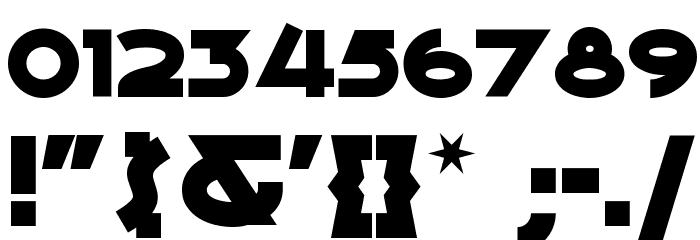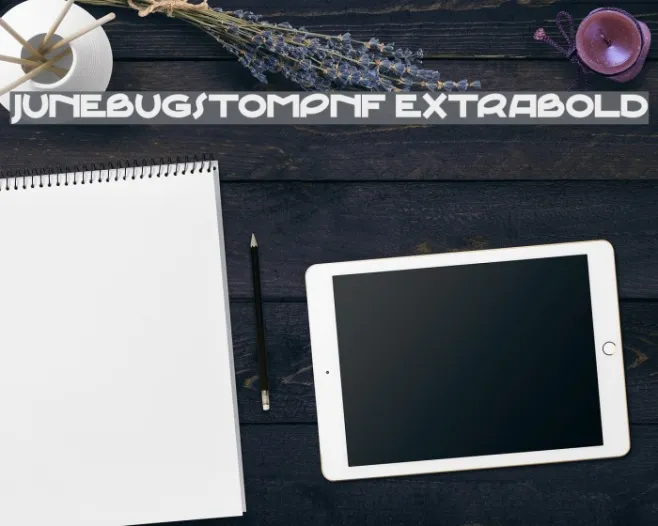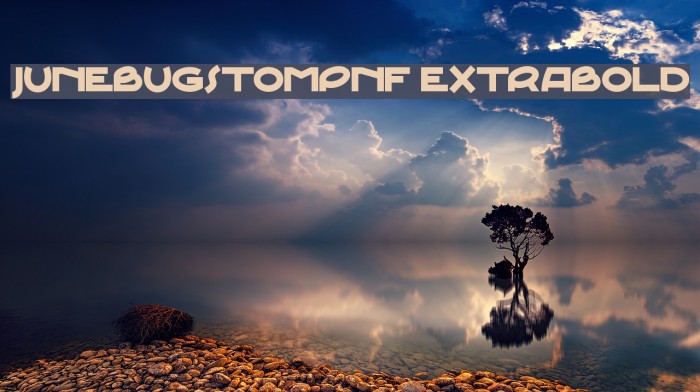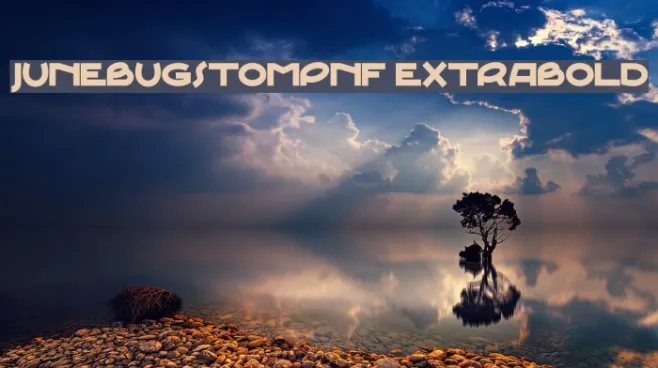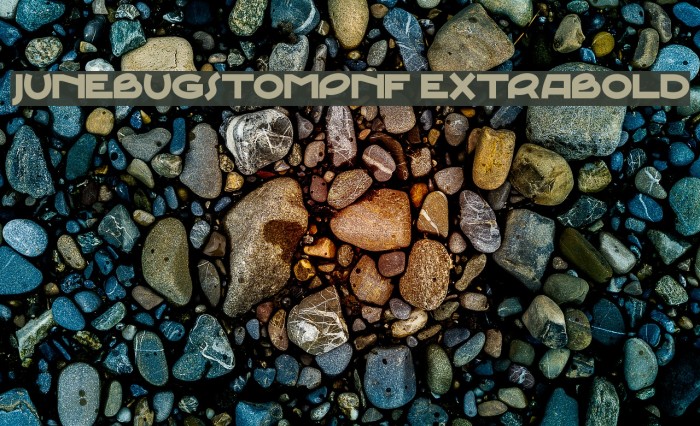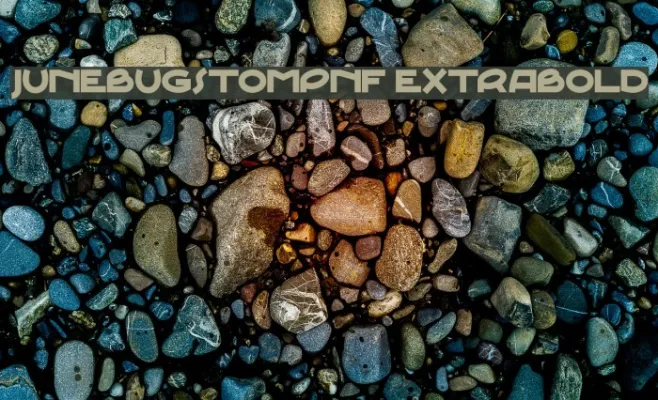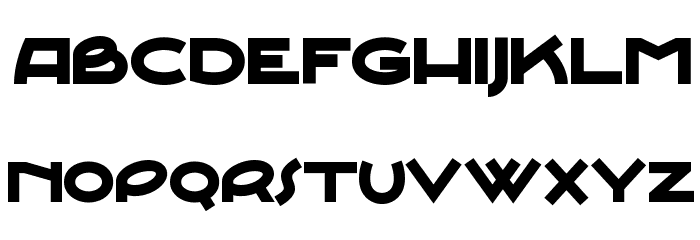
JunebugStompNF ExtraBold Font
JunebugStompNF ExtraBold Description
This font features a bold and striking design with a unique geometric style. The characters are crafted with sharp angles and a strong presence, making it ideal for attention-grabbing headlines. The uppercase letters are particularly distinctive, with a modern and edgy appearance. The numerals and special characters maintain this bold aesthetic, ensuring consistency across all text elements. Its design is both contemporary and versatile, suitable for a variety of creative projects.
| Proposed Projects | Ideal for branding, posters, and any project requiring a bold statement. |